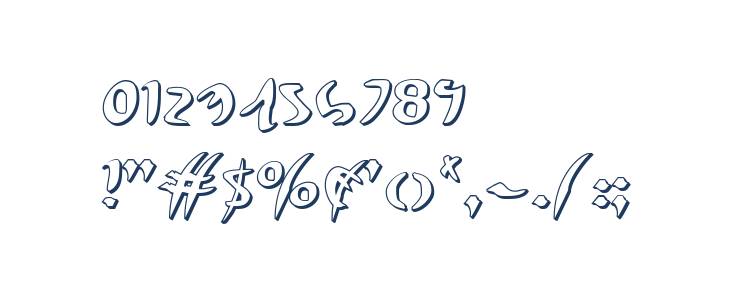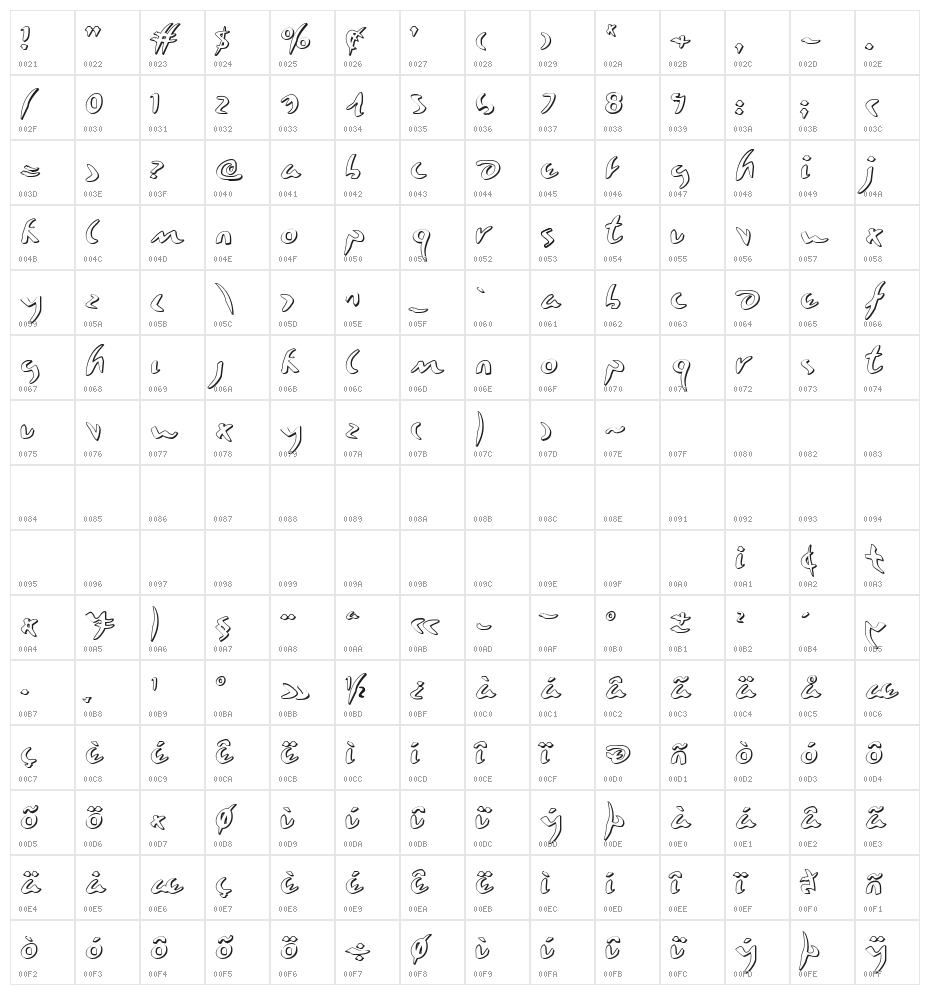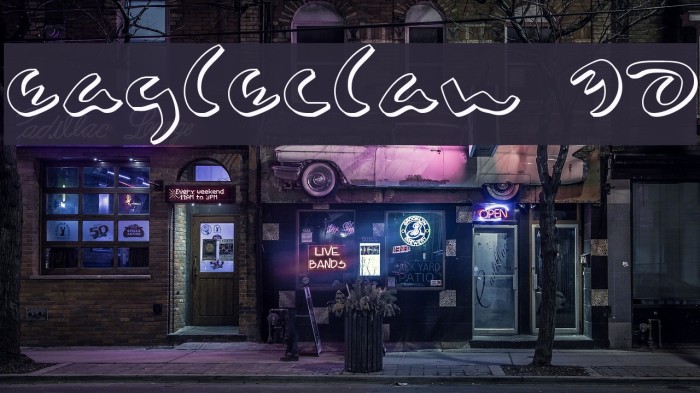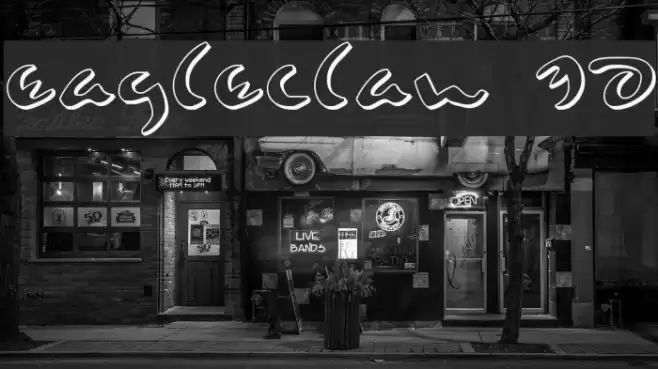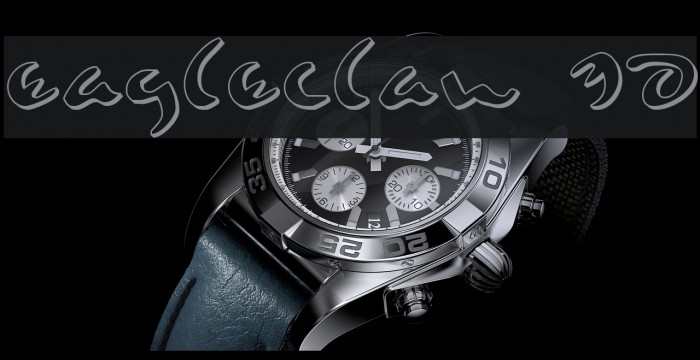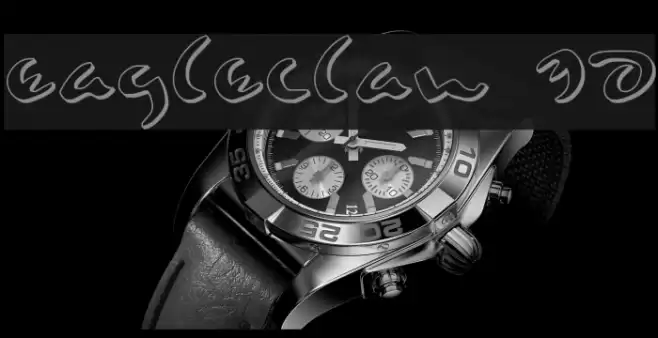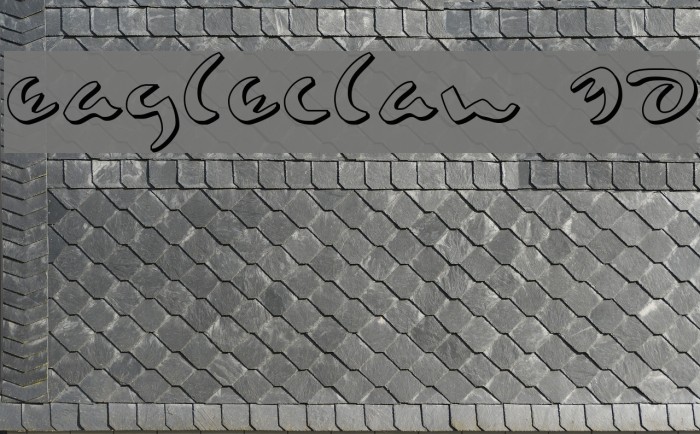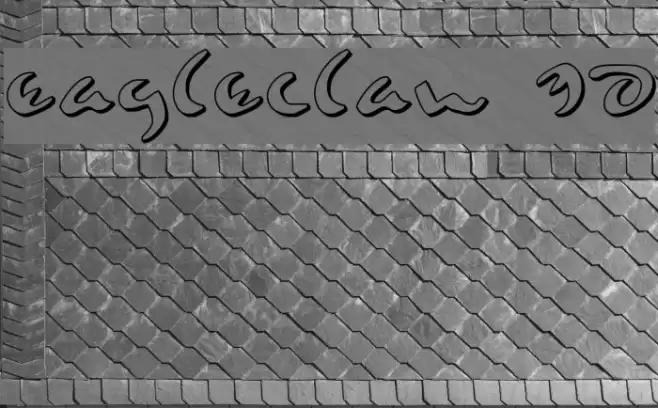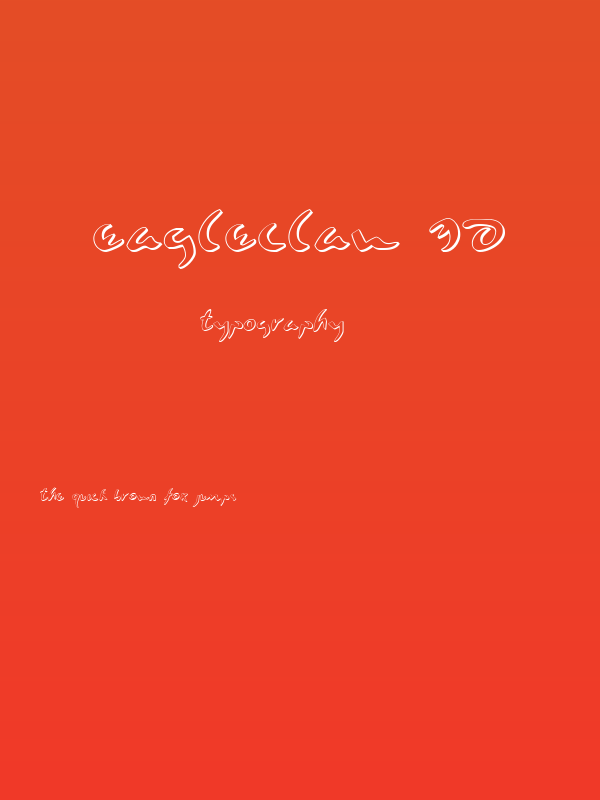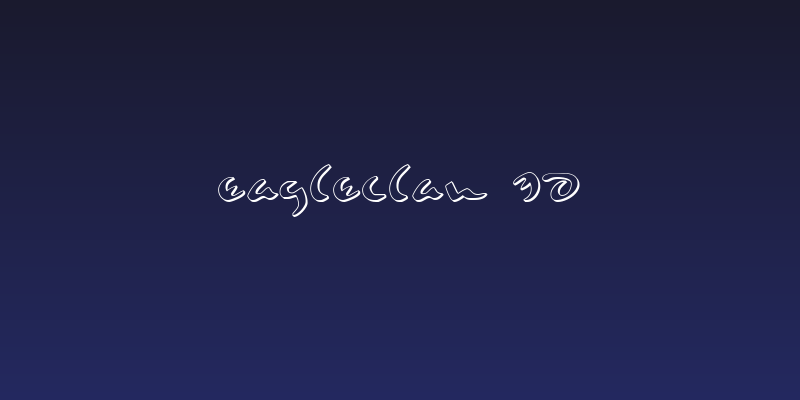
Eagleclaw 3D Font
Eagleclaw 3D Description
This font features a dynamic and bold 3D effect, with each character outlined to create a sense of depth and movement. The letters have a fluid, cursive style that adds a touch of elegance and flair. The uppercase and lowercase letters maintain a consistent style, with smooth curves and sharp angles that give the font a unique personality. The numbers and special characters are designed to match the overall aesthetic, ensuring a cohesive look across all text elements. This font is perfect for projects that require a bold and eye-catching design.
| Proposed Projects | Ideal for logos, posters, and branding materials that need a striking and memorable appearance. |